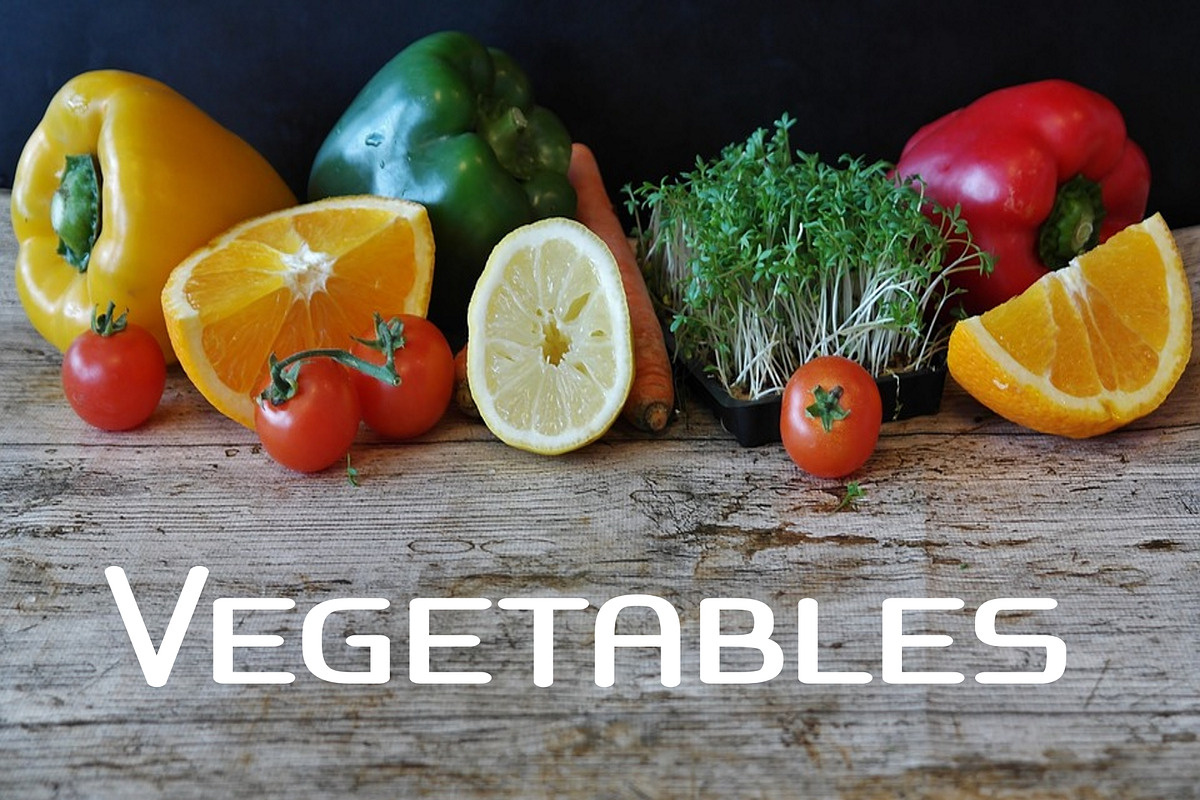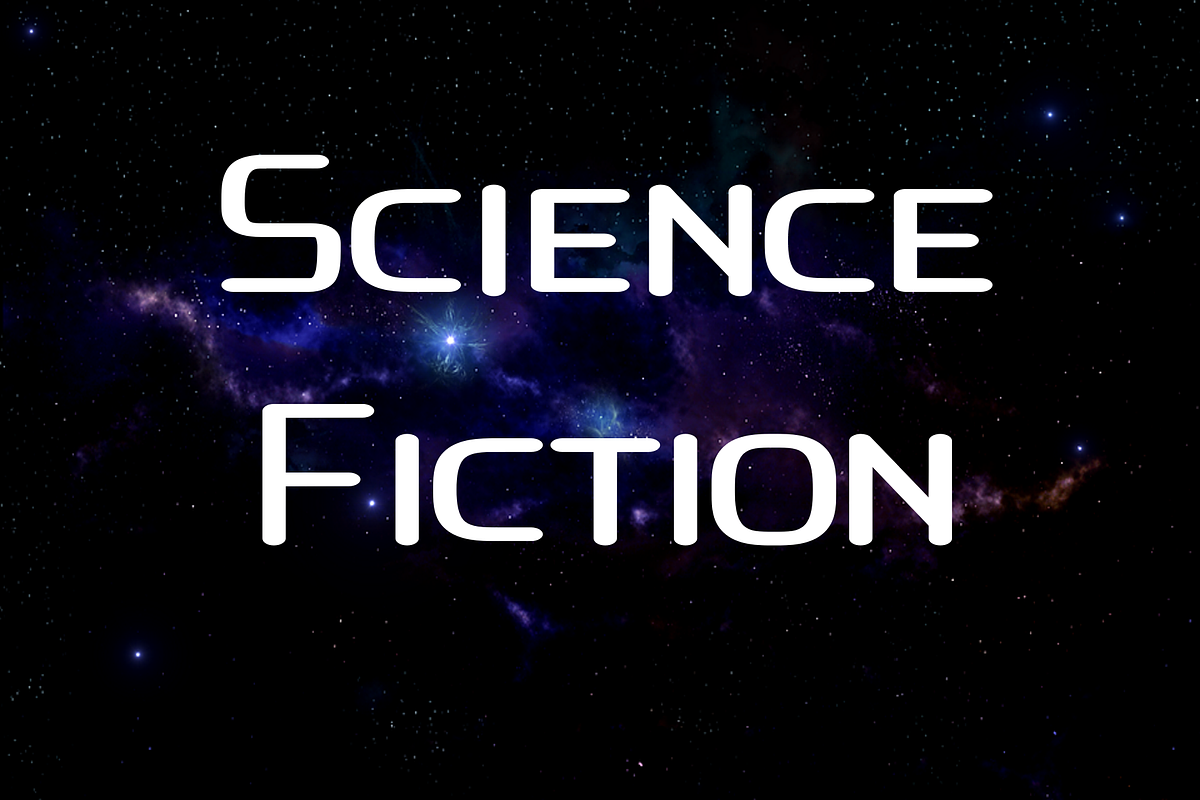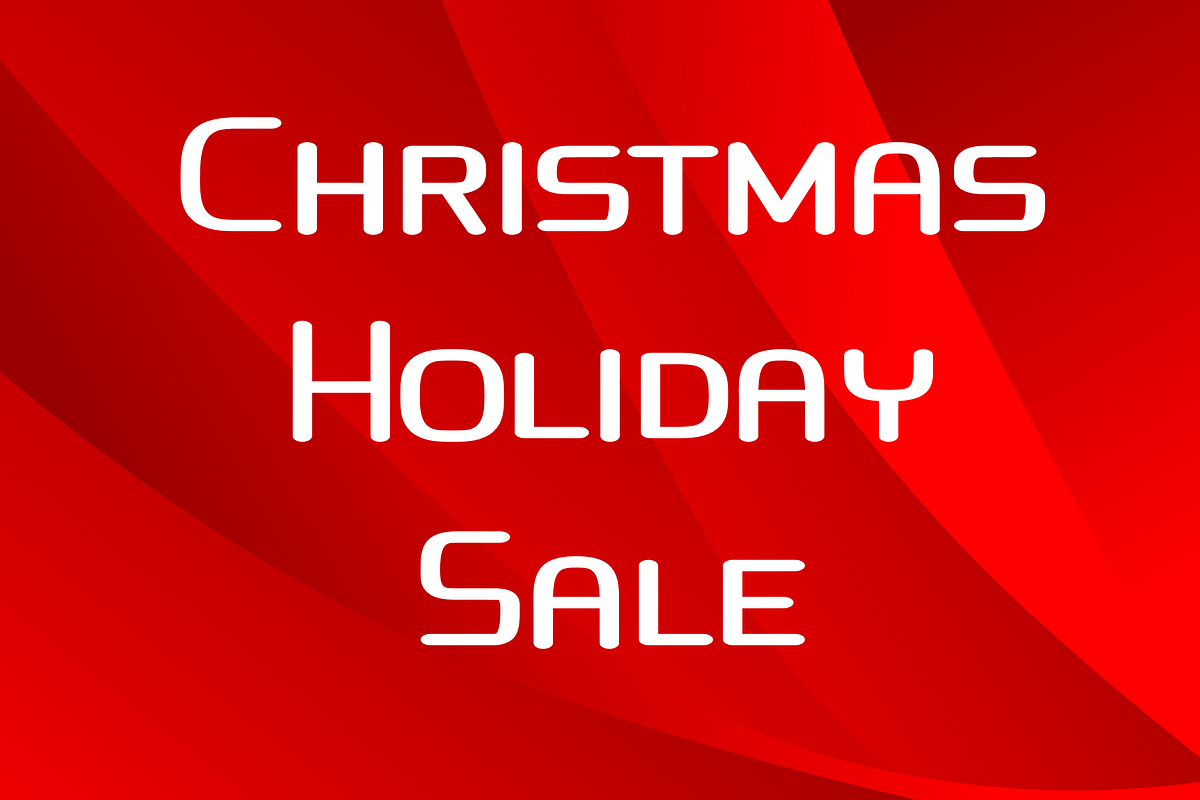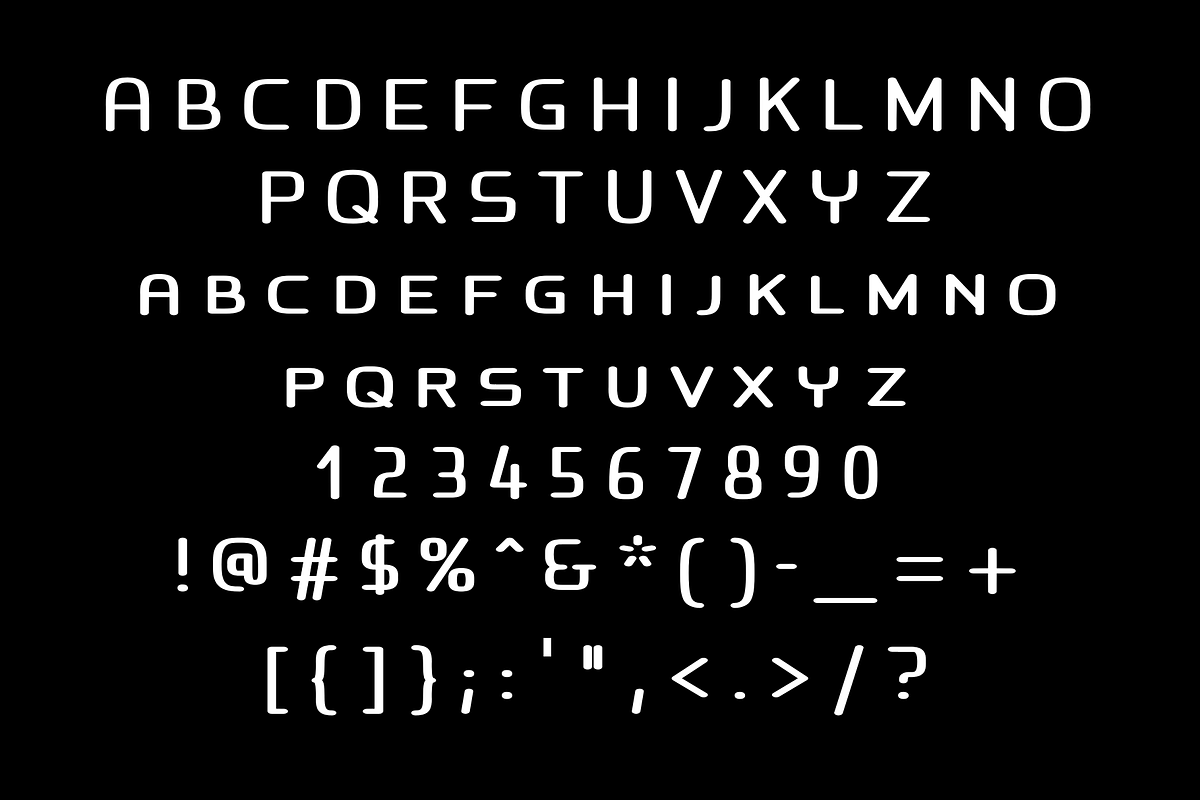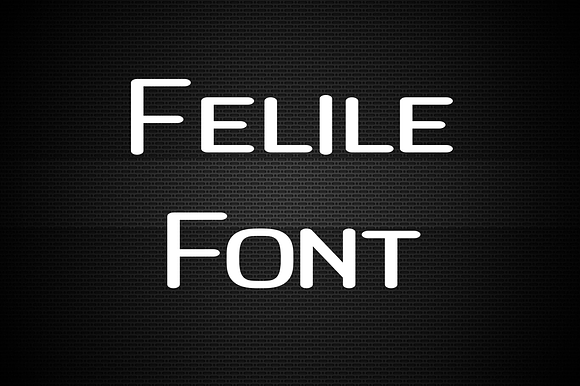
Felile Font
Felile Font by ultimatefontcreator is a font selected for branding, posters, packaging, typography.
Why Felile Font is worth a look
Felile Font by Ultimate Font Store fits naturally into Branding, posters, packaging, typography.